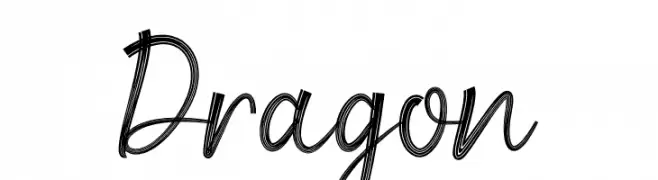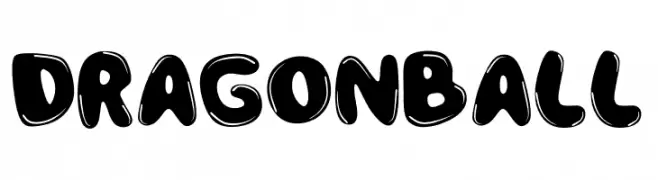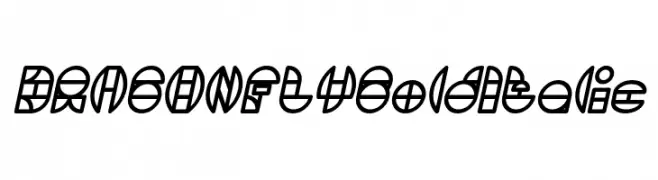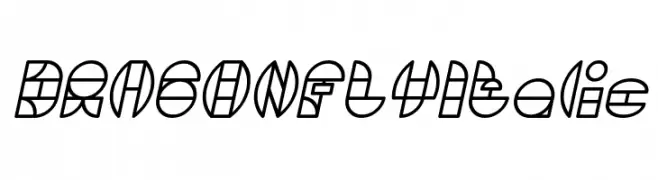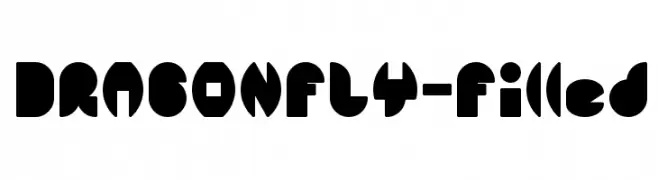
A dynamic, fluid script font with a handwritten, casual style.
A sharp, angular font with a mythical, rune-like appearance.
A bold, rounded, and playful font with a cartoonish style.
A geometric and abstract font with bold lines and circular elements.
A bold, geometric font with a futuristic and modern design.
A bold, italicized decorative font with geometric and modern elements.
A bold, geometric italic font with a futuristic and dynamic style.
A futuristic, geometric outlined font with a modern and abstract style.
A bold, geometric font with playful and abstract character shapes.